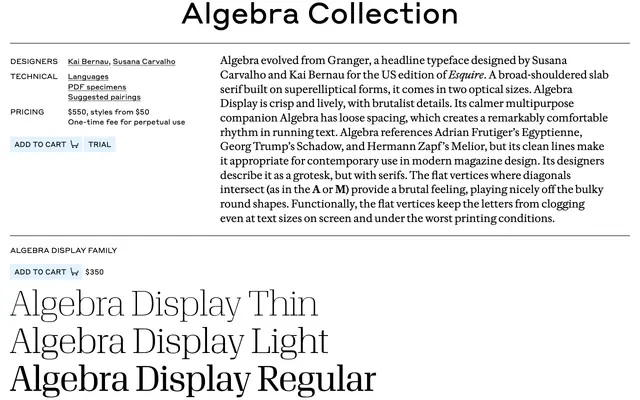
Algebra
Commercial Type · Kai Bernau and Susana Carvalho
A broad-shouldered slab on superelliptical forms by Bernau and Carvalho, drawn for editorial use with a crisp display cut and a calmer text companion.
A slab serif by Kai Bernau and Susana Carvalho that grew from Granger, a headline typeface they drew for the US edition of Esquire. Built on superelliptical forms in two optical sizes, Algebra Display is crisp and lively with brutalist details, while the text companion has looser spacing for a comfortable reading rhythm. The flat vertices where diagonals meet, as in the A and M, give it a brutal feeling against the bulky round shapes and stop letters clogging at small sizes on screen or under poor print conditions. References to Frutiger's Egyptienne, Trump's Schadow and Zapf's Melior place it in a contemporary magazine context.
A broad-shouldered slab serif built on superelliptical forms, with two optical sizes. The designers describe it as a grotesk with serifs, referencing Egyptienne, Schadow and Melior. Flat vertices on diagonals give it a brutal character while keeping letters open at text sizes.